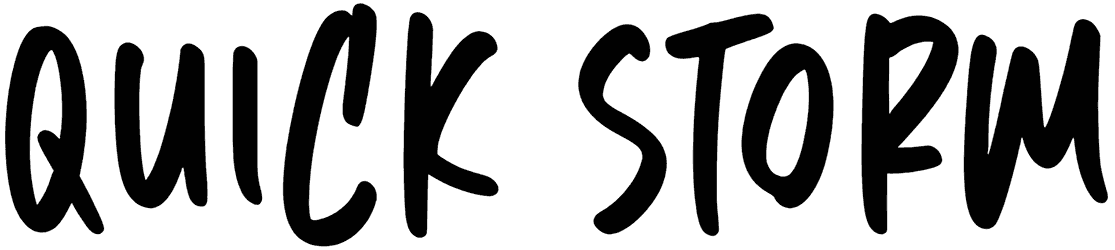
Quick Storm Font
You may not notice that Quick Storm’s letters don’t exactly match proportionally, but you’re going to be thankful for that. Not only does this fast font add a sense of rush to your lettering, but it also highlights it.
So don’t be surprised if you find yourself applying this friendly marker font to your hot chips, beach party posters, and things like that. It may be limited in punctuation and have 2 kinds of capitals instead of any lowercase, but it works.